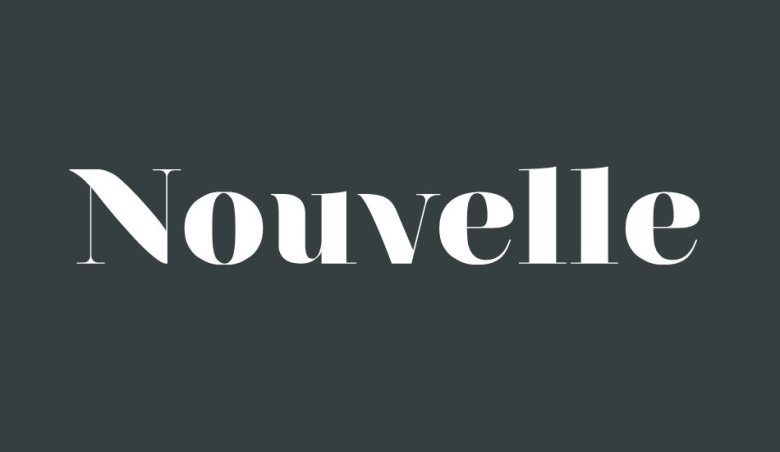
Nouvelle Vague Font
Nouvelle Vague Font is a classical style serif typeface that sets the mood and evokes emoti­­­­­­ons before you read the text. the new Serif with a modern and vintage style. It’s designed and shared by Dirk Schuster. This font is very versatile, spanning a wide variety of projects, from bold magazine imagery, to wedding invitations, to branding, poster design, and much more.